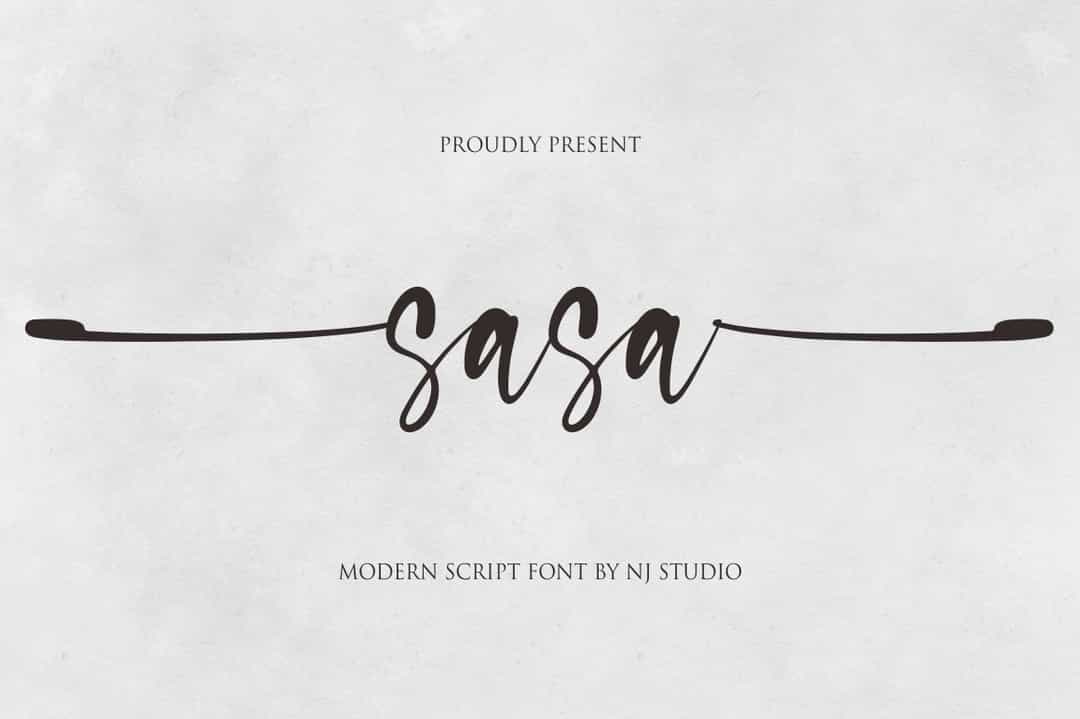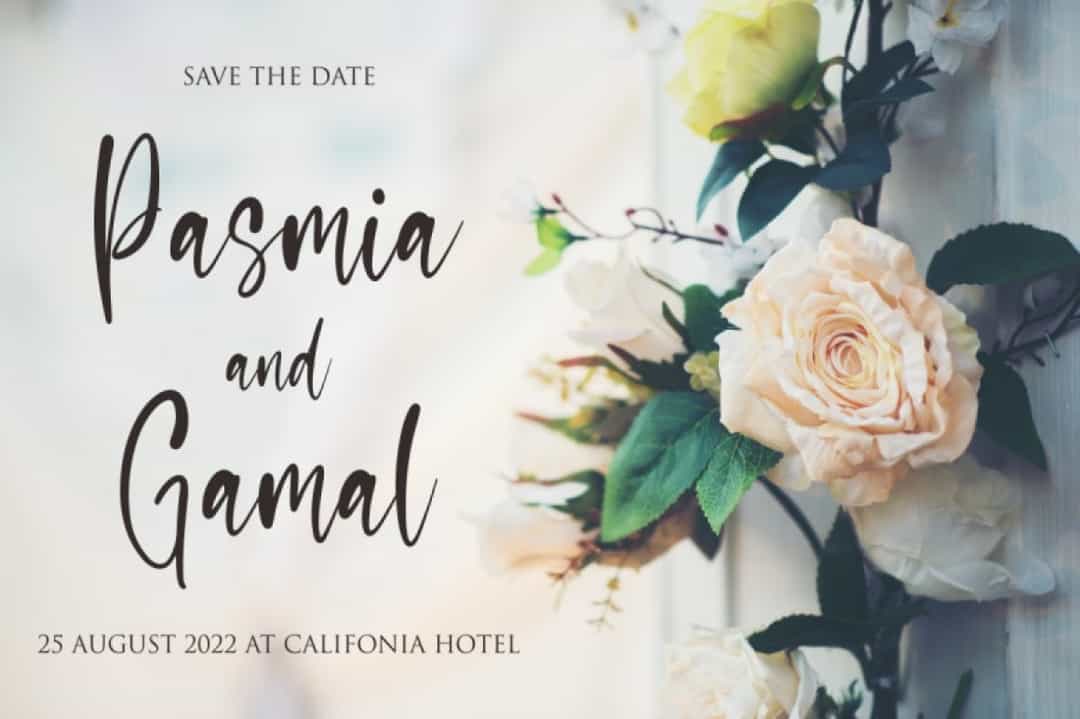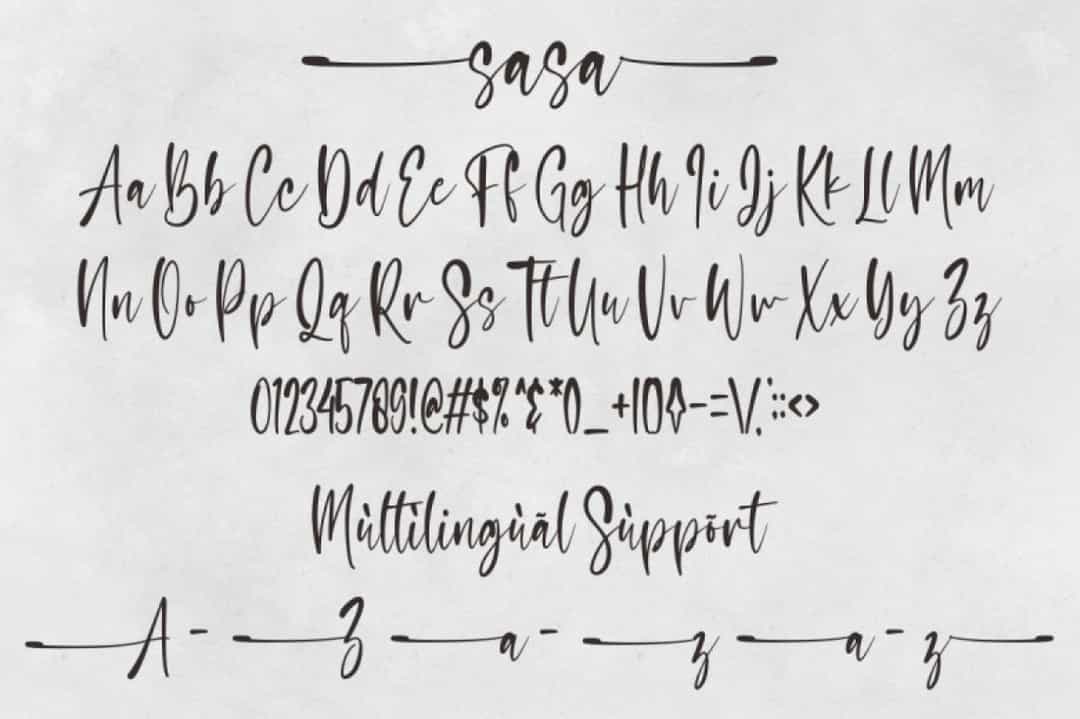
Discover Sasa Font, part of the Calligraphy Handwritten collection—a versatile and unique font perfect for adding a personal touch to your projects. Download it for free and enjoy crafting designs with style, from invitations to social media posts. This font is available exclusively for personal use, giving you the freedom to create without limits. Unlock your creativity with Sasa Font today!
Sasa Handwritten Font is an authentic script type with both an ending and beginning swash. Additionally, there are ligature characters to take your work to new heights! Additionally, this PUA font gives you access to each authentic glyph and swash.